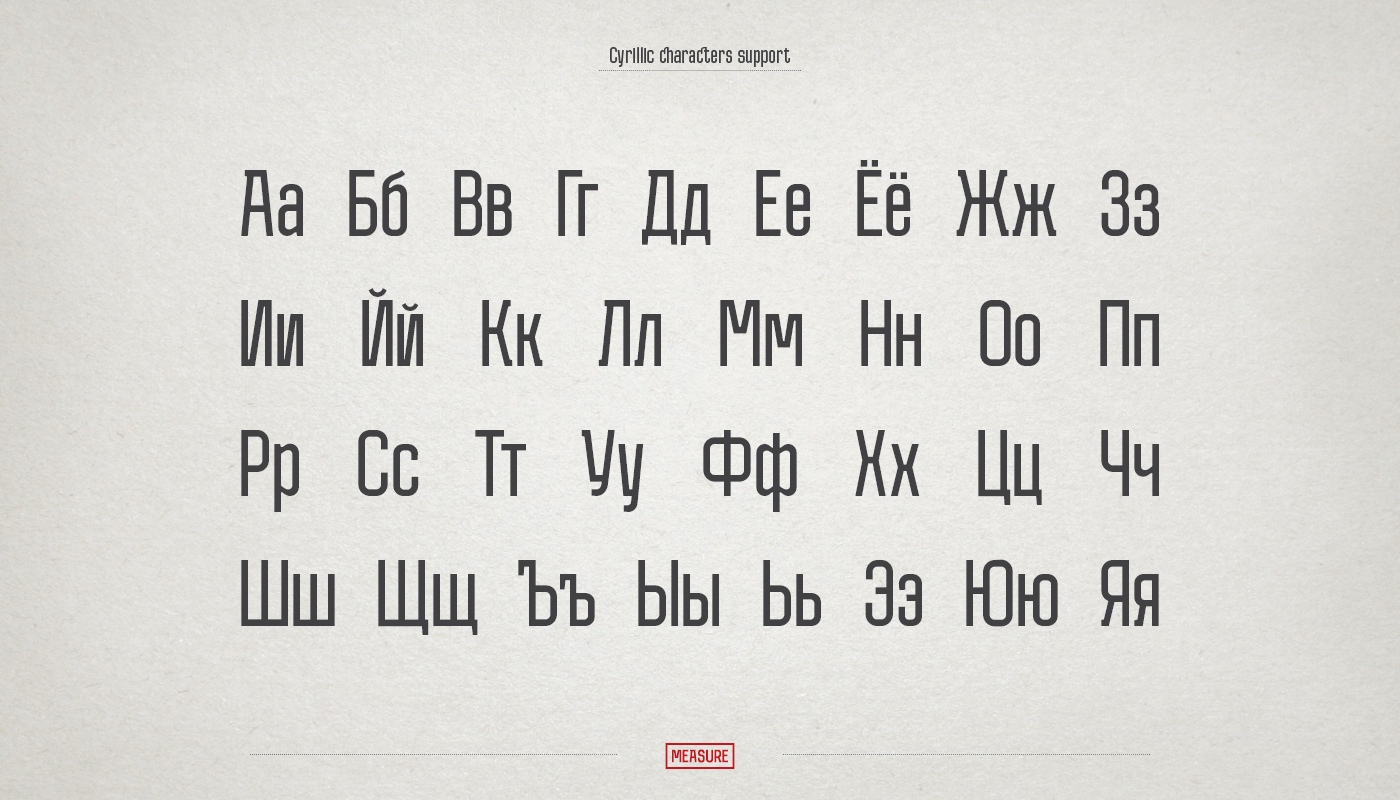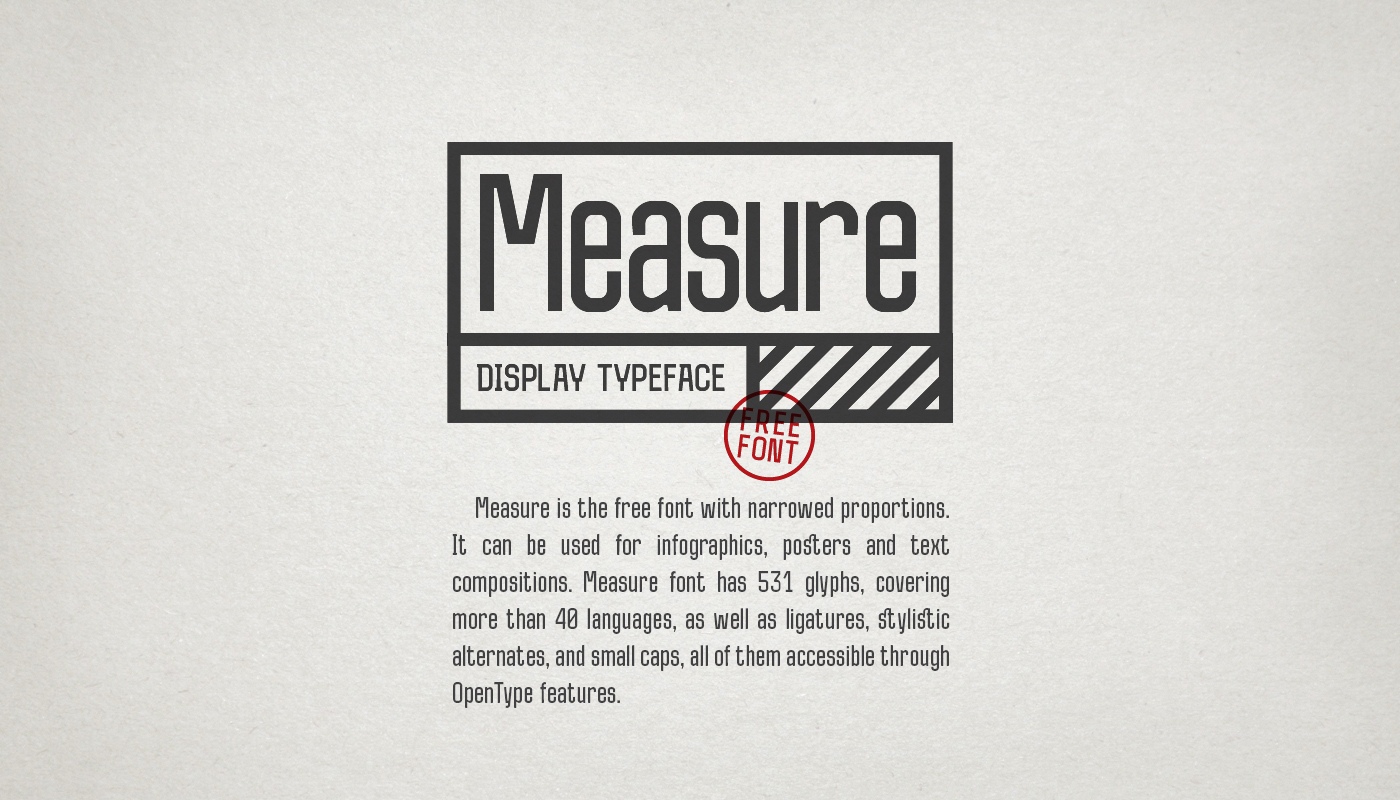
Measure Font
Measure Font is perfect for engineering documentation, scientific publications, measurement instruments, technical specifications, architectural drawings, precision manufacturing materials, laboratory equipment branding, quality control communications, analytical software interfaces, and professional calibration systems.
Measure Font is exciting because it embodies the precision and accuracy of scientific measurement with its meticulously calibrated letterforms that communicate exactness, reliability, and the unwavering standards of professional measurement systems. Its systematic character design reflects the mathematical precision and technical accuracy required in fields where every detail matters, making it perfect for organizations that demand absolute precision and measurable excellence.
The Measure Font family includes Light, Regular, Medium, Bold weights, precise Italic variations, Condensed styles, Scientific alternates, Measurement flourishes, Technical ornaments, and Calibration elements, providing designers with comprehensive tools for creating accurately measured typography that serves the demanding requirements of scientific, engineering, and technical measurement applications.
Measure Font Free Download delivers scientifically precise typography for applications requiring absolute accuracy and measurement standards, featuring systematically engineered letterforms that embody the rigor and reliability of professional measurement systems. This precise typeface combines technical accuracy with visual clarity, creating the perfect solution for scientific institutions, engineering firms, and measurement companies that require typography as precise as their instruments.
Whether you're developing scientific instrument brands, designing engineering documentation, creating laboratory materials, or producing technical measurement communications, Measure Font provides the accurate foundation needed for credible scientific positioning. Its precise character makes it particularly effective for measurement equipment manufacturers, scientific laboratories, engineering consultancies, and quality control organizations that serve professionals requiring absolute measurement accuracy.
Perfect for scientific communicators, engineering designers, laboratory brand developers, and technical professionals working with measurement systems, this font offers the precise qualities essential for successful scientific market positioning. The typeface's systematic approach ensures consistent accuracy across complex technical documentation, scientific publications, and professional measurement applications.
Measure Font includes comprehensive scientific character sets, measurement-focused typography features, and precision-calibrated spacing that guarantees superior performance in technical measurement applications. Its scientific approach to typography makes it indispensable for organizations requiring measurable precision and technical accuracy. Achieve perfect measurement with Measure Font Free Download and create typography that truly measures up to professional standards.